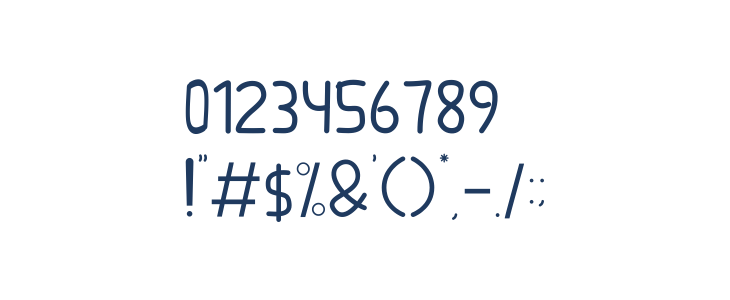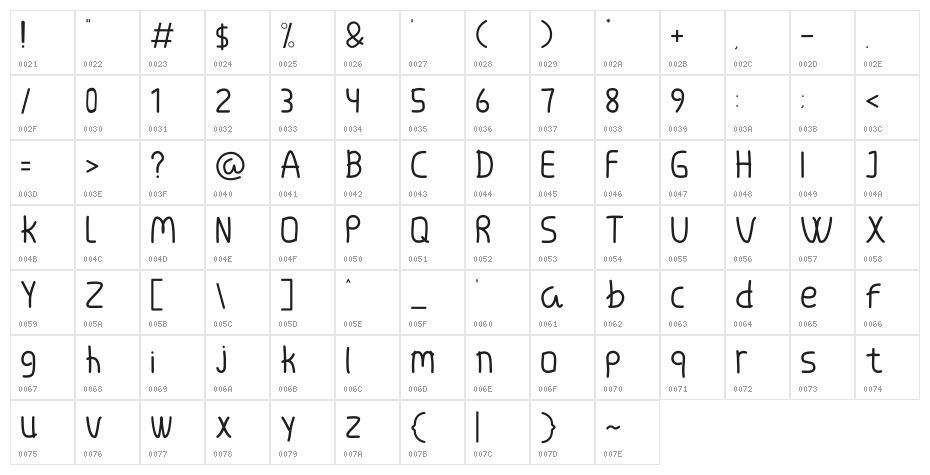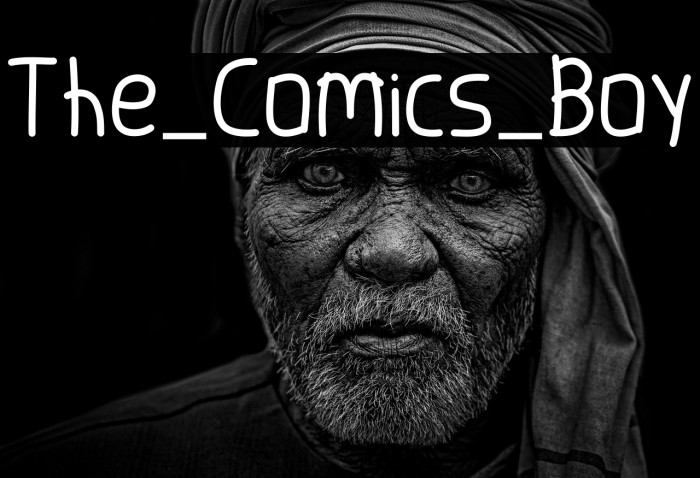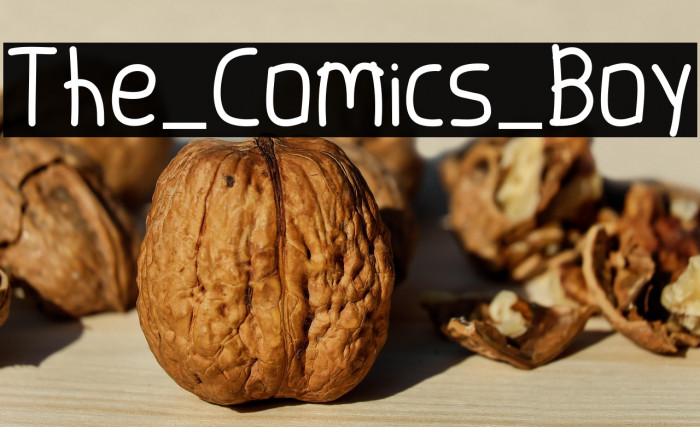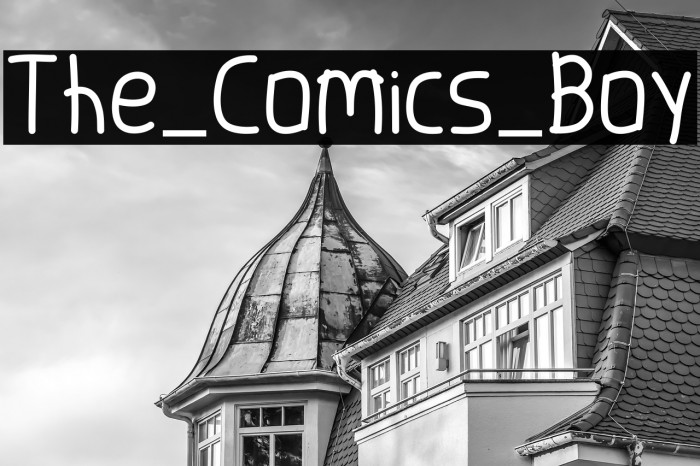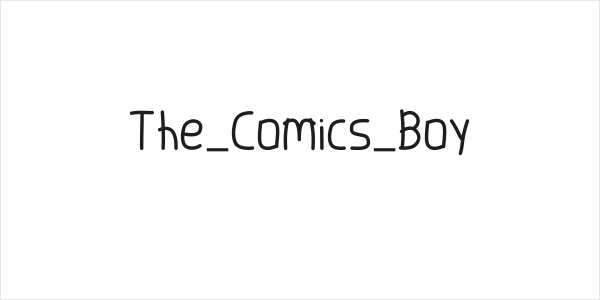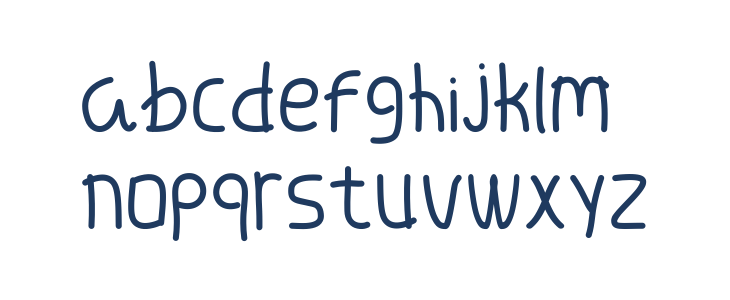
The_Comics_Boy Font
The_Comics_Boy Description
This playful and whimsical font features rounded, hand-drawn characters that evoke a sense of fun and creativity. The letters are slightly irregular, giving them a casual and informal appearance, reminiscent of comic book lettering. The strokes are consistent in width, providing a uniform look across all characters. The font includes both uppercase and lowercase letters, numerals, and a variety of special characters, making it versatile for different uses. Its friendly and approachable style makes it ideal for projects that aim to convey a lighthearted and engaging tone.
| Proposed Projects | Ideal for comic books, children's books, playful branding, and casual invitations. |